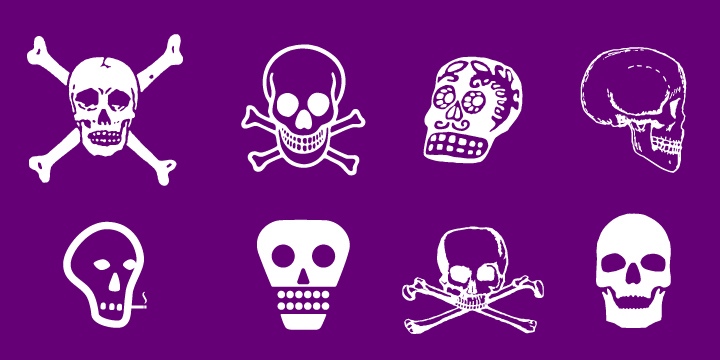
Catacumbes Font
Catacumbes Font is perfect for horror movie posters, gothic book covers, haunted house branding, underground music album artwork, dark fantasy gaming projects, Halloween-themed designs, mystery novel titles, occult-inspired merchandise, alternative fashion branding, and atmospheric restaurant logos.
What makes Catacumbes Font so exciting is its haunting ability to evoke ancient mysteries and underground atmospheres. This captivating typeface draws inspiration from the shadowy depths of historical catacombs, creating an instantly recognizable aesthetic that sends chills down the spine. The font's distinctive character design incorporates weathered textures and ominous curves that perfectly capture the essence of forgotten underground passages and ancient burial chambers.
Catacumbes Font comes in multiple font families including Regular, Bold, Distressed, Shadow, Outline, Condensed, Extended, and Grunge variations. Each family member maintains the core gothic atmosphere while offering different intensity levels and stylistic approaches to suit various dark design requirements.
The Catacumbes Font Free Download provides designers with an exceptional tool for creating memorable dark-themed projects. This remarkable typeface stands out with its unique blend of historical reference and contemporary design sensibilities. The font's carefully crafted letterforms tell stories of ancient civilizations and forgotten rituals, making it an invaluable asset for projects requiring atmospheric depth and mysterious appeal.
Professional designers recognize how Catacumbes Font transforms ordinary text into compelling visual narratives. The typeface's organic textures and irregular edges create authentic weathered appearances that digital effects often fail to achieve. Its versatile design works equally well for large display applications and medium-sized text blocks, though it's particularly powerful when used for headlines and titles.
The archaeological inspiration behind Catacumbes Font makes it especially suitable for historical documentaries, museum exhibitions, and educational materials about ancient civilizations. Its distinctive character set includes special symbols and decorative elements that enhance the overall mysterious atmosphere of any design project.
Creative professionals working in entertainment, gaming, and publishing industries find Catacumbes Font indispensable for establishing dark, immersive brand identities. The font's ability to instantly communicate themes of mystery, history, and underground culture makes it perfect for projects targeting audiences who appreciate gothic aesthetics and alternative design approaches.